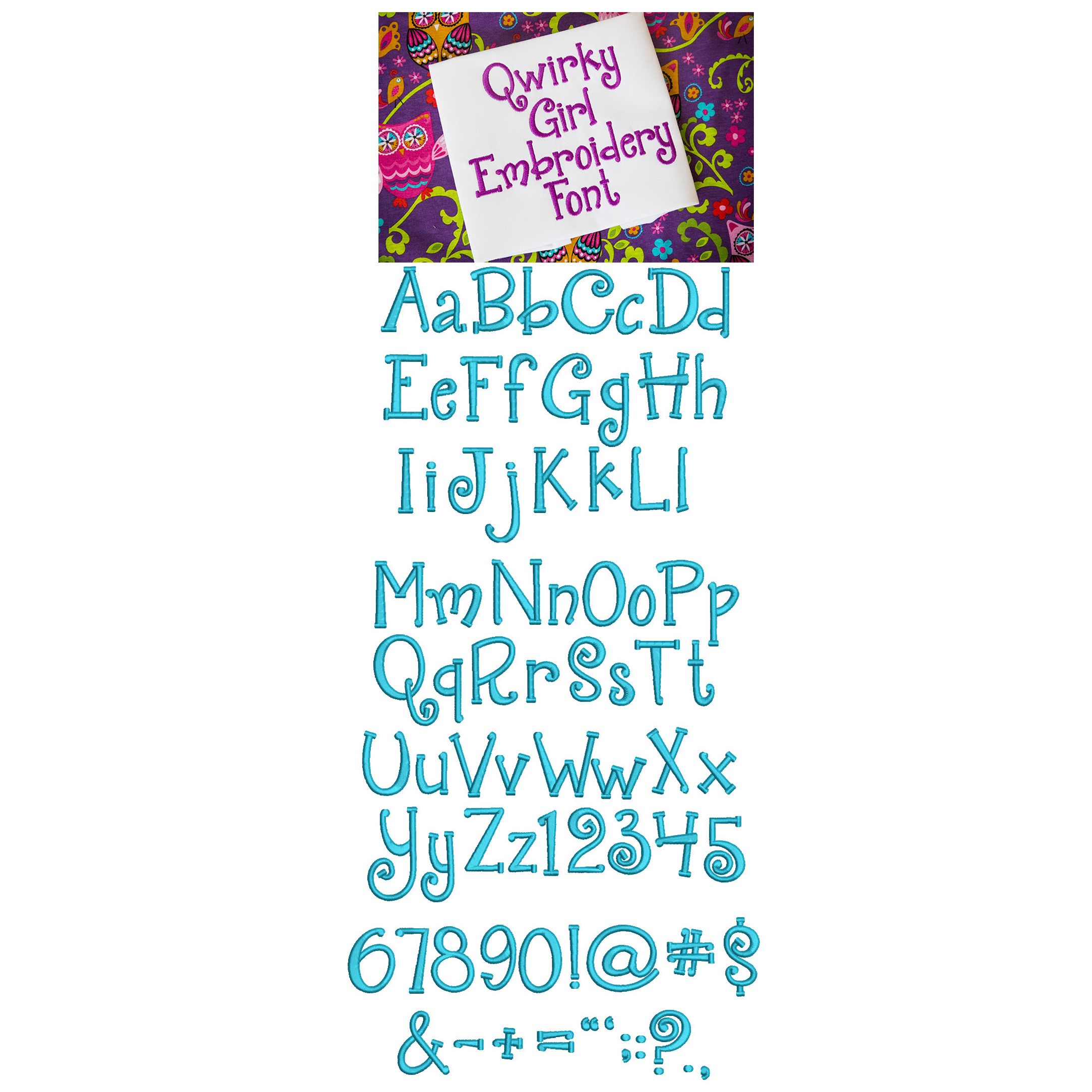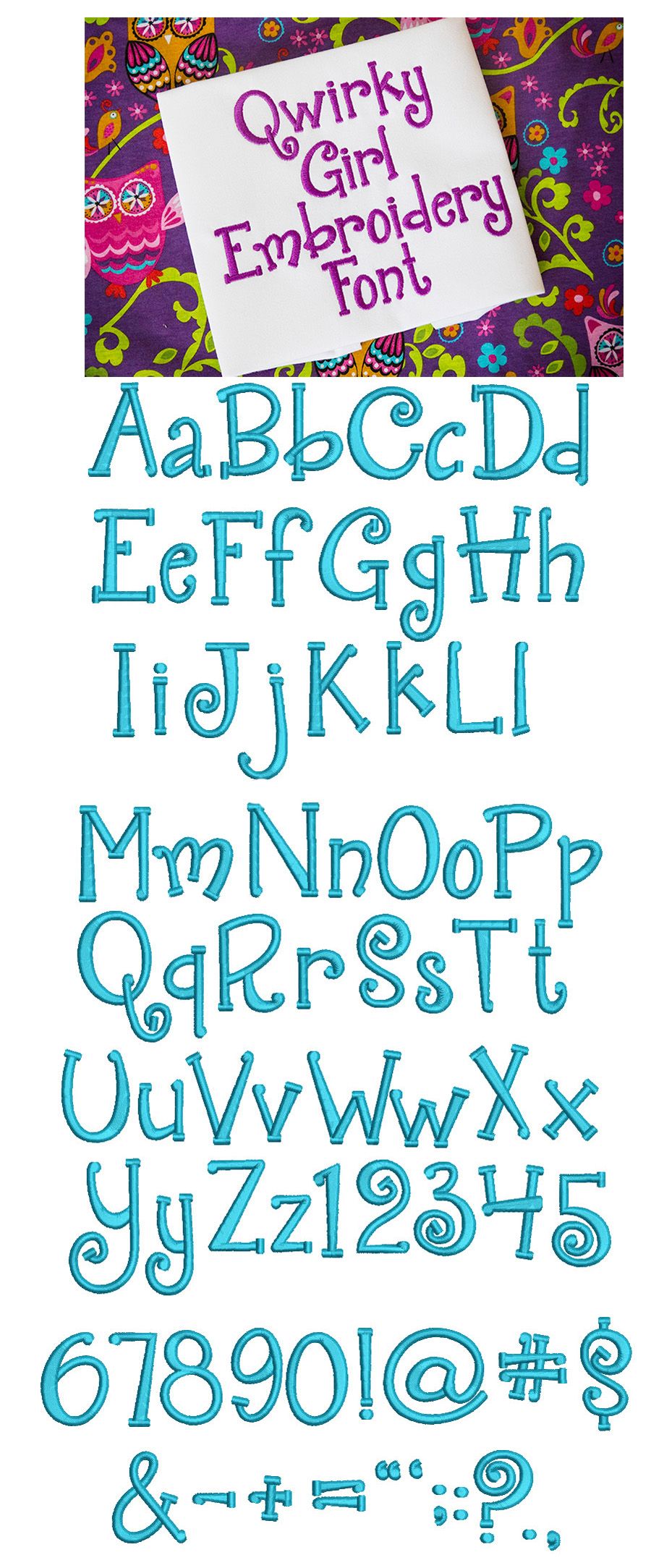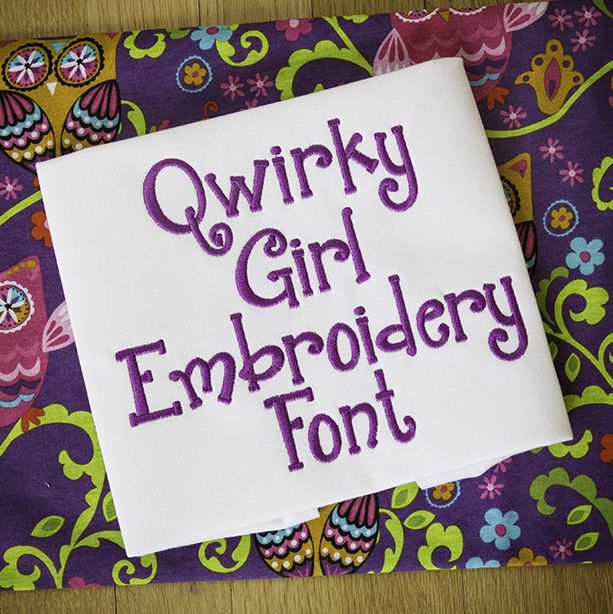
Quirky Girl Satin Stitch Embroidery Font
Just like the name, a cute and quirky font..a little bit girly! :) All of our font alphabets are 100% manually digitized to bring you maximum stitch quality.